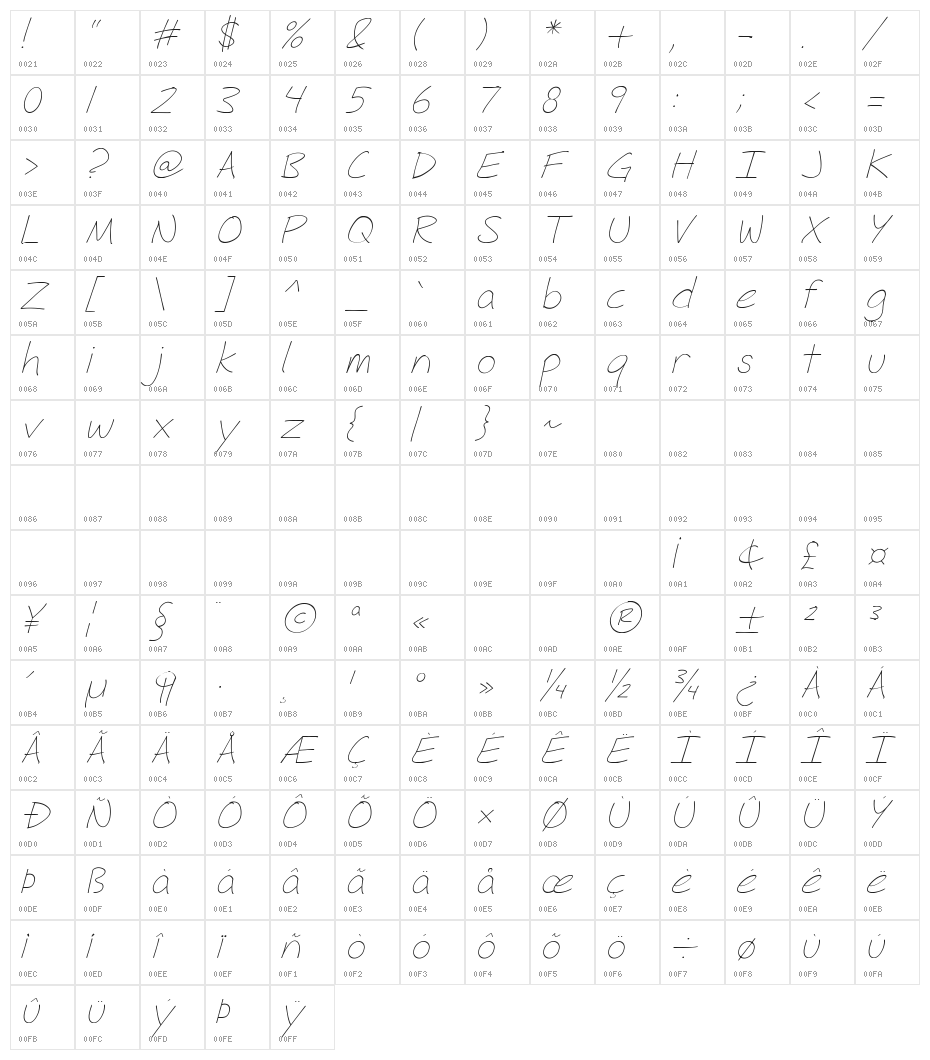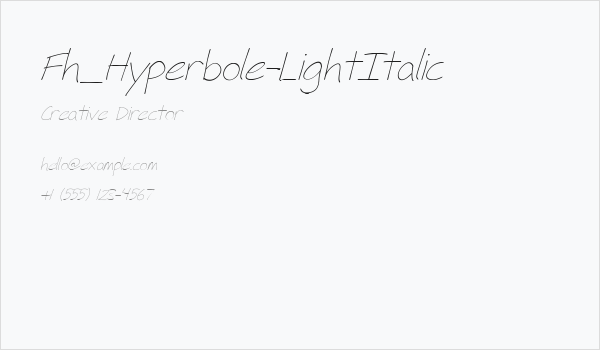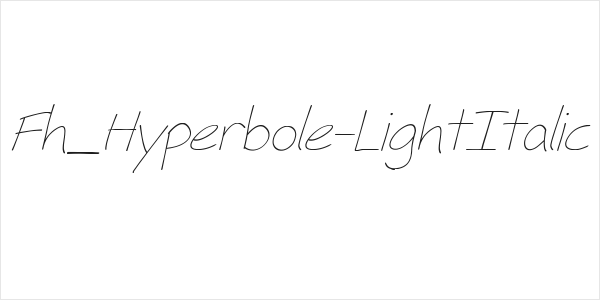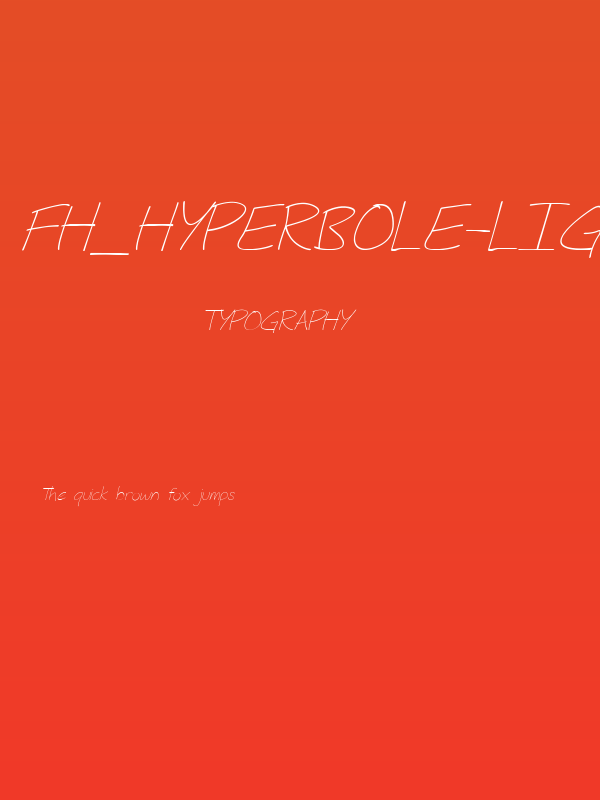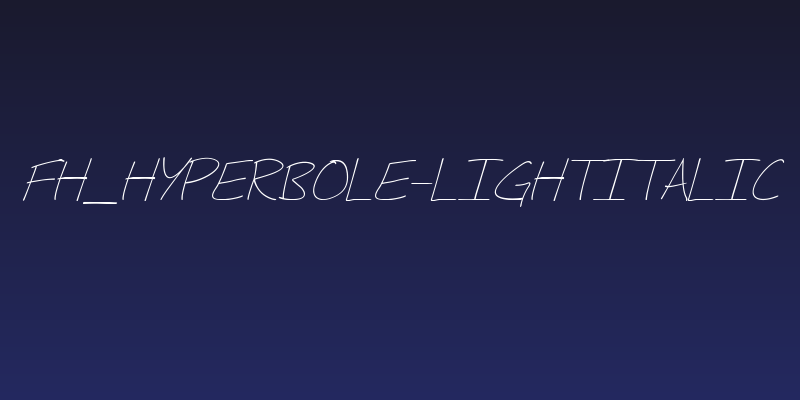
Fh_Hyperbole-LightItalic Font
Fh_Hyperbole-LightItalic Description
This font features a light and airy design with a distinct italic slant, giving it a dynamic and fluid appearance. The characters are elegantly elongated with a consistent stroke width, creating a sense of movement and grace. The uppercase letters maintain a uniform height, while the lowercase letters have a playful, slightly informal style. The numerals are clear and legible, matching the overall aesthetic of the font. Special characters are well-integrated, maintaining the font's cohesive look. The spacing between characters is generous, enhancing readability and adding to the font's open feel.